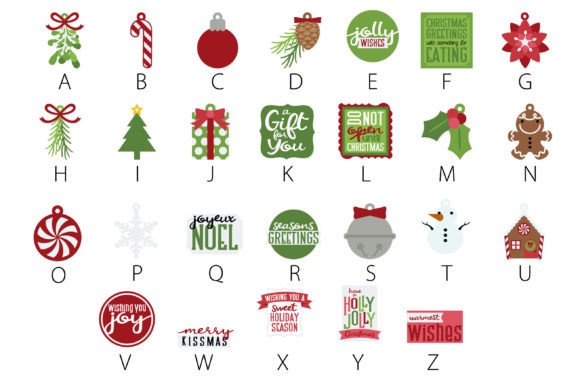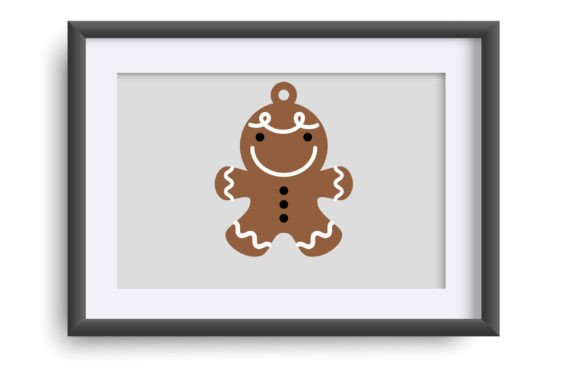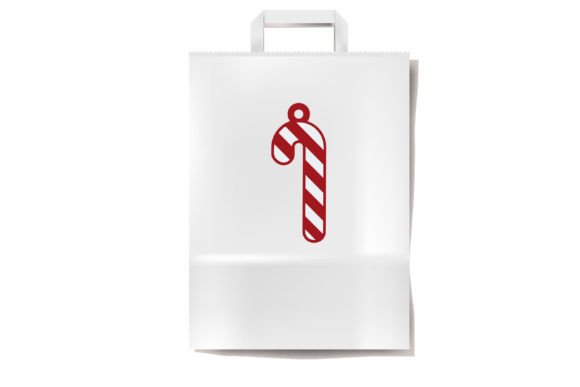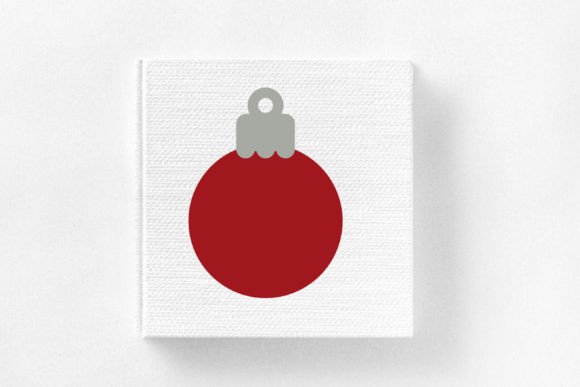
The Magic of Christmastide Font: A Designer’s Delight
I still remember the year I spent hours searching for the perfect font for a client’s Christmas card project. It was a chilly winter evening, and I was sipping hot cocoa while scrolling through font after font on my computer. I wanted something that captured the whimsy and joy of the season, but everything seemed either too traditional or too bland. That’s when I stumbled upon Christmastide Font, and it instantly became my go-to for all my holiday projects. If you’re a designer, crafter, or creative hobbyist looking for a font that brings modern Christmas magic to your work, you’re in the right place!
An Honest Review of Christmastide Font
• ✨ Modern Christmas elements that feel fresh and fun
• 🎉 OpenType full-color (SVG) font support for vibrant designs
While Christmastide Font is a fantastic addition to any design toolkit, there are a few things to keep in mind:
The Story Behind Christmastide Font
Christmastide Font was designed with the modern maker in mind. The creator wanted to capture the essence of the holiday season in a fresh, fun way that would appeal to designers, crafters, and hobbyists alike. With its unique blend of modern elements and traditional Christmas spirit, Christmastide Font has become a go-to for anyone looking to add some festive flair to their projects.